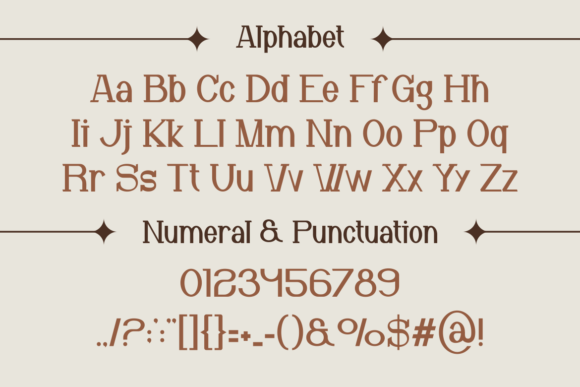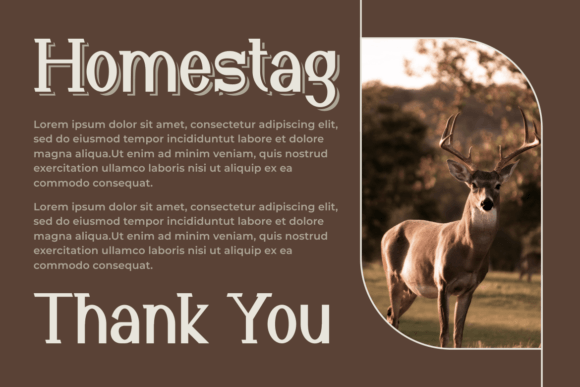
Introduction to Homestag Font
Homestag is a modern font with one authentic touch.
It’s a perfect fit for t-shirt printing, logos, branding, quotes, business cards, and more .
Key Features of Homestag Font
Why Choose Homestag Font?
Homestag Font offers exceptional quality and versatility, making it a valuable addition to your design toolkit. Whether you’re creating for personal projects or commercial use, Homestag Font delivers professional results.